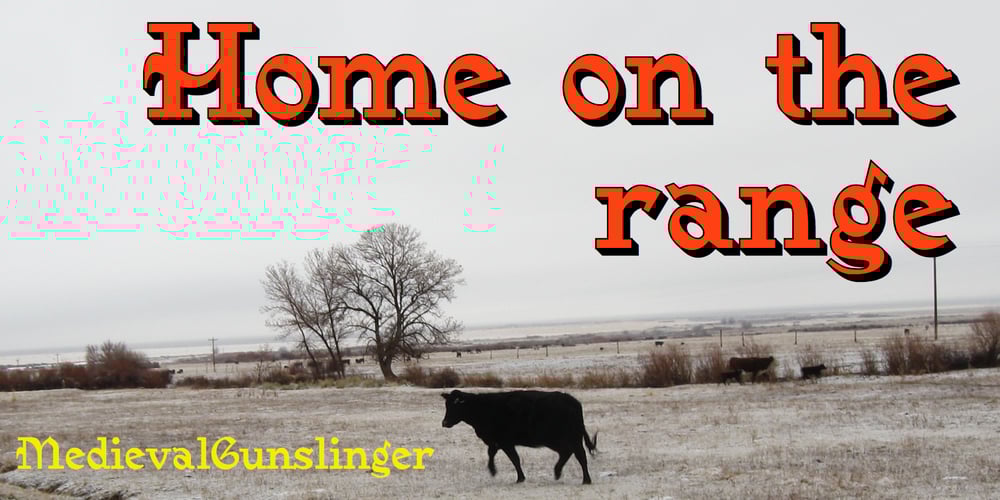
Medieval Gunslinger Font Family was designed by Robert Schenk and published by Ingrimayne Type. Medieval Gunslinger contains 3 styles and family package options. What would happen if one took a rather crude, squared-serifed typeface of the type popular in the 19th century and added medieval and calligraphic ornamentation? Maybe the result would be Medieval Gunslinger.The MedievalGunslingerShadOverlay font is spaced so that it can be layered with MedievalGunslingerShadow to produce bicolored lettering.